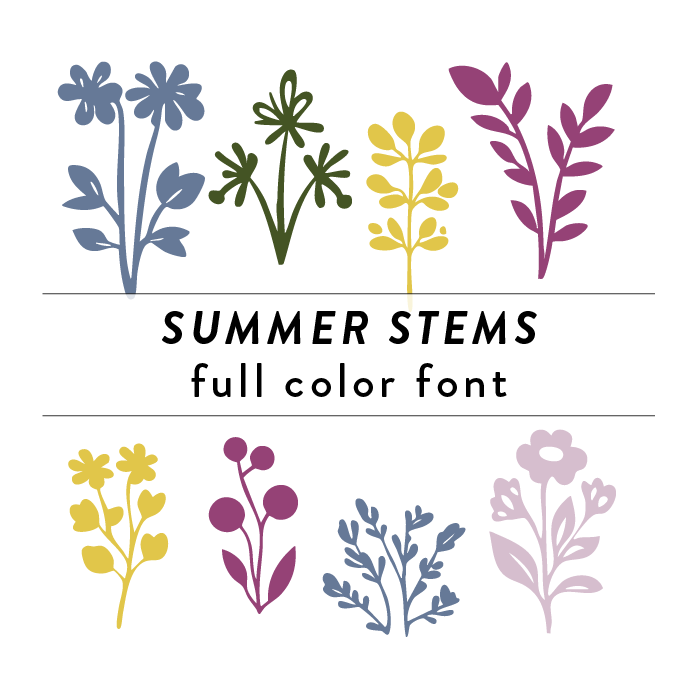
Summer Stems 2 Full Color Font is a vibrant and playful font design inspired by blooming flowers and lush foliage. This unique font features intricate details of stems, branches, and leaves, adding a touch of nature to any project. Perfect for craft projects, invitations, and branding materials, this font exudes a whimsical and organic style that is sure to make your designs stand out. This font is a OTF craft font that will appear in color only when used with the silhouette software.